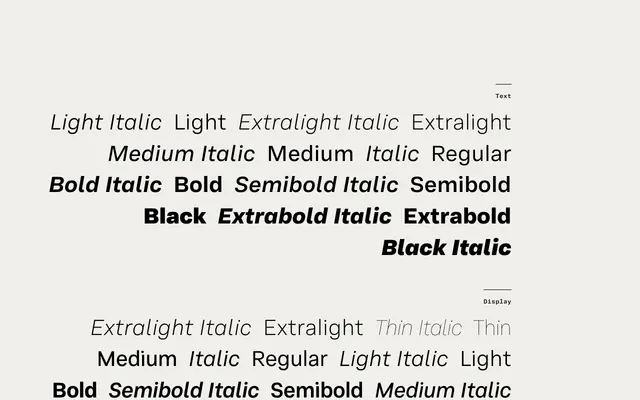
Adapter Hebrew
A Hebrew sans-serif with dedicated Text and Display optical sizes, spanning nine weights with italics and variable font support.
Designed for the Hebrew script, Adapter Hebrew offers two optical size families — Text and Display — each covering nine weights from Thin to Black with matching italics. The full range is also available as a variable font. The division between text and display cuts reflects careful attention to how stroke contrast and spacing need to shift between body copy and headline settings.
Adapter Hebrew is a sans-serif typeface designed for the Hebrew script, with optical size variants (Text and Display) suggesting a humanist approach calibrated for reading comfort across different contexts.